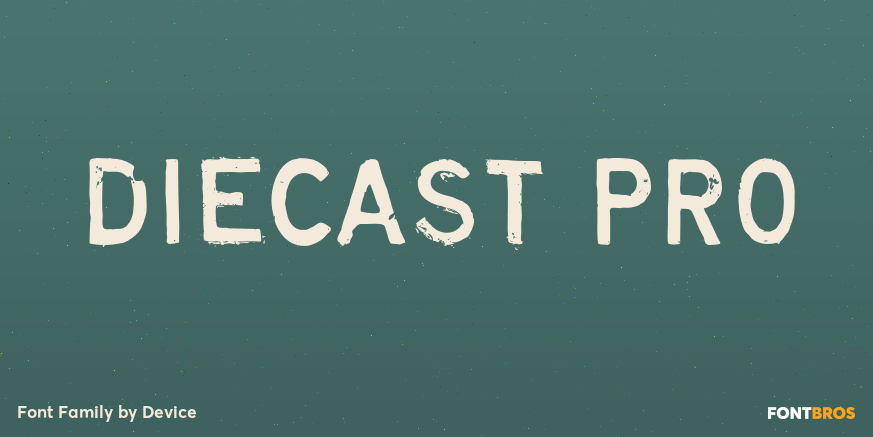
Diecast Pro
About Diecast Pro
A companion piece to Mulgrave, this font is the intermediary design between the chunky Victorian style that Mulgrave reproduces and the Ministry of Transport sans introduced in 1933 and digitised as Ministry. Although they date from between 1910 and 1933,…